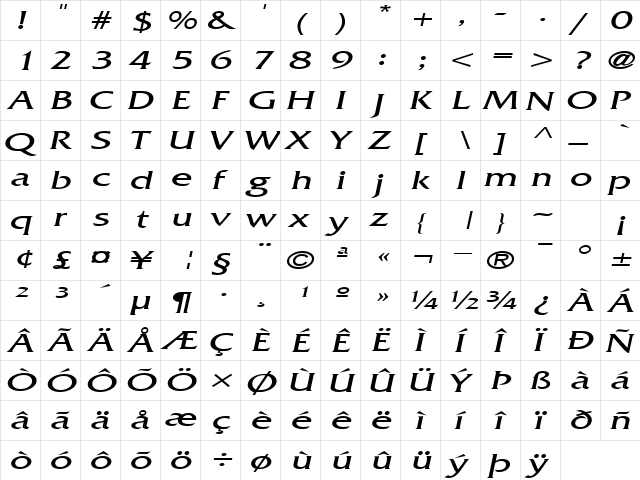
AllianceExtended Italic
Design Context for AllianceExtended Typeface
AllianceExtended offers clean, dependable letterforms without strong stylistic allegiance, making it a practical choice for designers who need flexibility. The dynamic lean of this cut emphasises speed and emphasis in any layout.
Pro Tip: Try AllianceExtended for annotation and caption copy alongside an upright companion — the contrast in angle creates a dynamic but ordered typographic system.